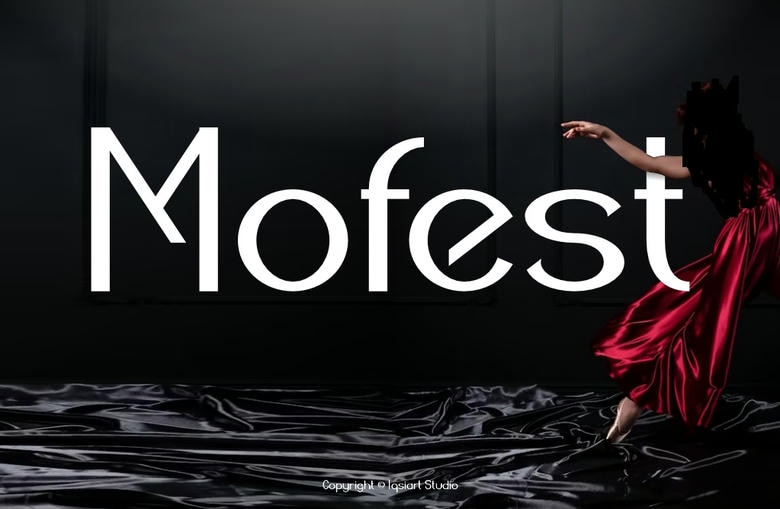
Mofest Font
Mofest is a stylish sans serif font that exudes contemporary elegance and sleek simplicity. It represents a clean and smooth line structure, balanced proportions, and curves, which make it capture a modern versatile look.
Ideal for branding, headlines, packaging, and digital design, it adds a polished and professional touch to any project. This font is sophisticated and functional with its elegant outlay and easy readability.
Mofest Sans Serif Font